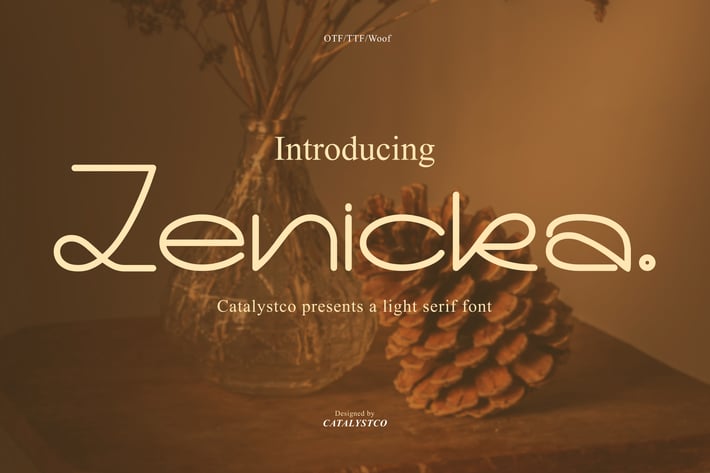
Zenicka Light Serif Font
Zenickea is a uniquely crafted light serif font that blends retro charm with modern elegance. It evokes a warm, nostalgic atmosphere with smooth curves and soft terminals, giving off a relaxed yet refined character. The font offers a distinct visual tone—sophisticated, calm, and quietly expressive.
Perfectly designed for creative professionals, Zenickea carries a vintage aura suitable for editorial design, minimalist branding, lifestyle logos, and fashion-forward marketing. The warm visual energy makes it an ideal choice for Instagram content, boutique product packaging, wedding invites, and cozy coffee table books.
With its rounded and mildly geometric serif structure, Zenickea brings legibility and personality in equal measure. Every glyph is thoughtfully designed with aesthetic continuity, making it a standout display font with just the right balance between classic and contemporary.
From soft logo marks to storytelling layouts, Zenickea is best used for branding systems, headers, magazine spreads, poster designs, typographic quotes, social media templates, and more.
Main Features
Ligatures & Alternate
Numeral & Punctuations
* Multilingual Support